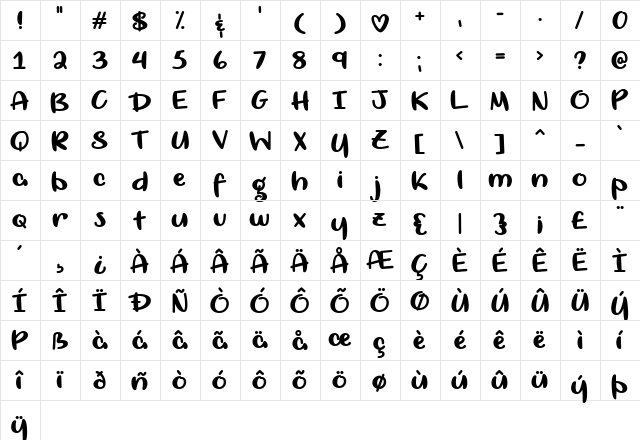
Living Selflessly Regular
Design Context for Living Selflessly Typeface
Living Selflessly is a composed and adaptable typeface that performs quietly and consistently across a wide range of design contexts.